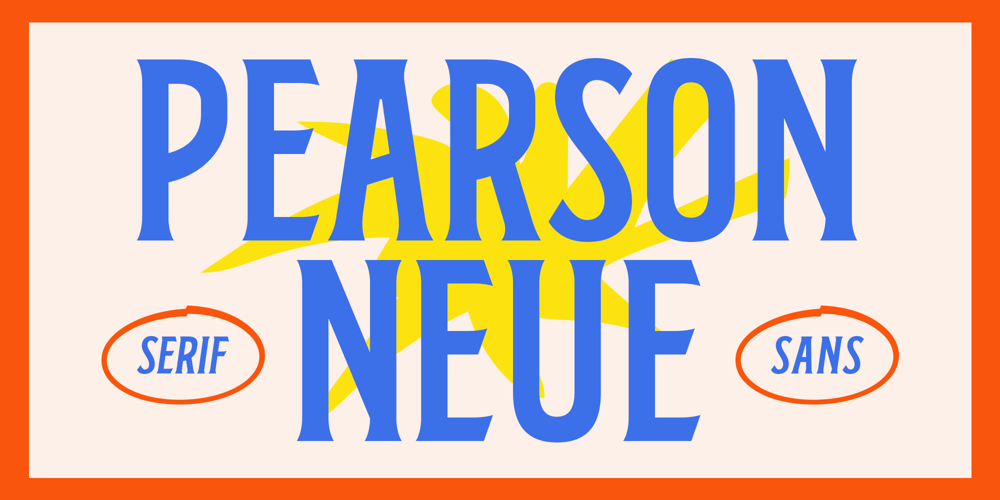
Pearson Neue
Pearson Neue font
Pearson Neue Font Family was designed by Bagas Ferdiansah, Septianto Nugroho and published by Ironbird Creative. Pearson Neue contains 4 styles and family package options. Pearson Neue is a font created based on the previous Pearson font, this font is made with a Serif type that has a Condensed and Sans Serif type with Expanded. Only with All Caps letters to give a strong and bold impression and give a vintage, classic, old school, and handmade impression. Comes with 2 font styles, Regular and Oblique. Suitable for any graphic design such as branding materials, t-shirts, logos, posters, quotes, or packaging designs.